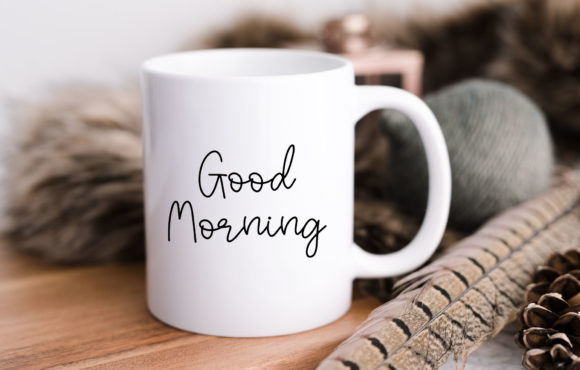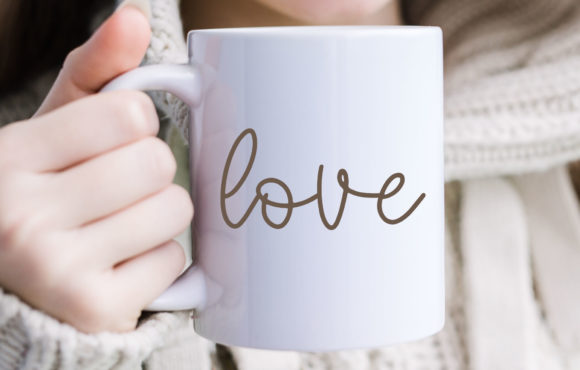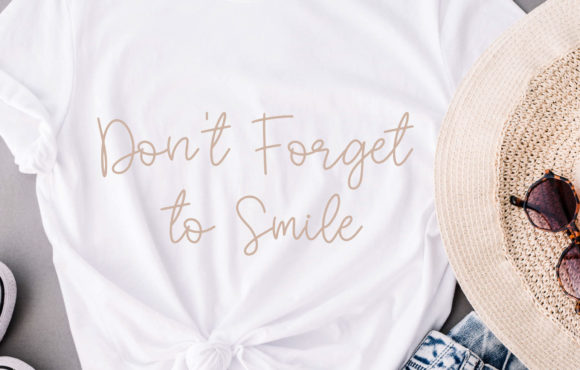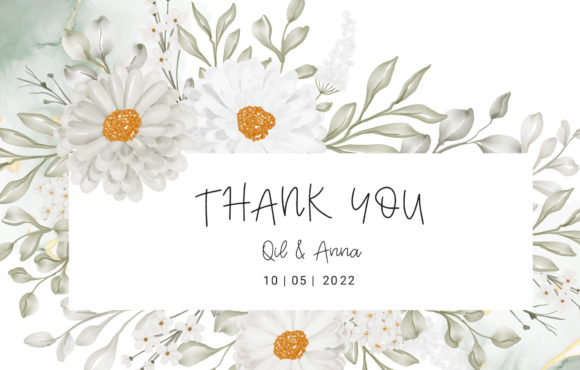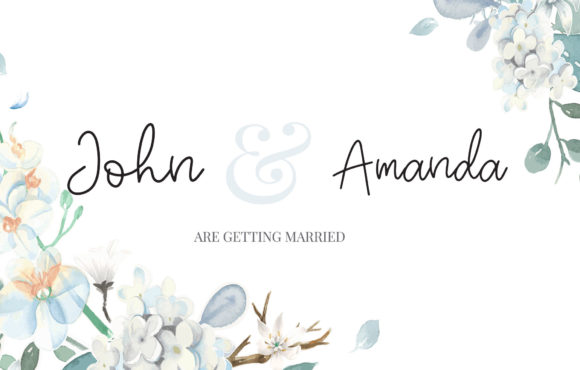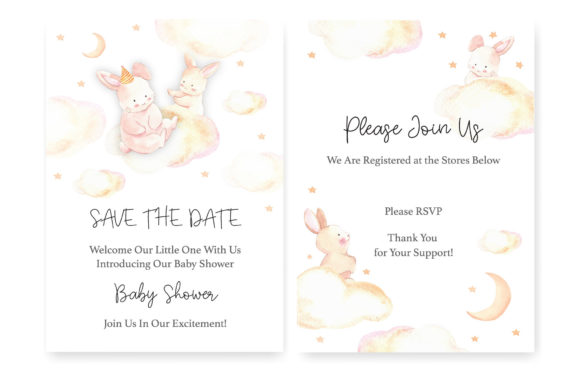
The Sweet Spot: Discovering the Charm of Chocolate Font
I’ll never forget the time I was working on a branding project for a craft bakery, and I just couldn’t find the right font to capture their playful yet elegant vibe. The client wanted something that felt handmade, yet sophisticated enough for business cards and merchandise. That’s when I stumbled upon Chocolate Font, and it was love at first sight! 💕
Chocolate is a slim and delicate handwritten font that’s clean, a little quirky, and perfect for logos, branding, social media, and crafty DIY projects. In this article, I’ll share my experience with Chocolate Font, its features, and how to make the most of it in your designs.
- ✨ Slim and delicate strokes that give it a unique, elegant feel
- ✅ Clean and highly legible, even at smaller font sizes
- 🌈 Versatile and adaptable for various design projects, from logos to social media graphics
- 💡 OpenType features that allow for creative exploration and customization
While Chocolate Font is amazing, there are a few things to keep in mind: 🤔
- ⚠️ Limited use of uppercase letters might make it less suitable for headlines or titles that require all-caps
- ⚠️ Some characters may require manual kerning for optimal spacing and readability
A Practical Guide: Using Chocolate Font in Your Designs
Chocolate Font was designed with the intention of creating a font that feels both handmade and refined. The designer aimed to capture the essence of handwritten scripts while making it suitable for digital and print applications. The result is a font that’s perfect for crafty DIY projects, branding, and social media graphics.
Q: Is Chocolate Font suitable for body text?
A: While Chocolate Font is highly legible, it’s best suited for headlines, titles, and short paragraphs. For longer body text, consider pairing it with a complementary font for better readability.